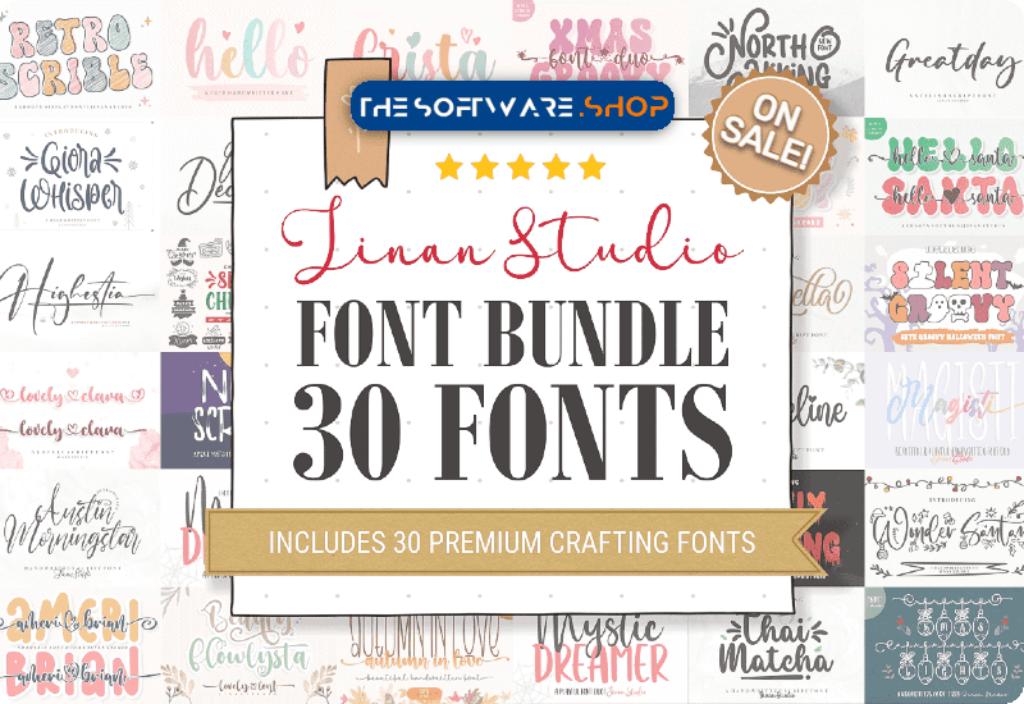
Jinan Studio Font Bundle Overview
Fonts play a pivotal role in shaping the narrative of your projects. They have the power to evoke emotions, capture attention, and create lasting impressions. Every designer knows the value of a versatile font collection, and that’s precisely what the Jinan Studio Font Bundle delivers.
The Power of Quality Fonts
Before delving into the details of the Jinan Studio Font Bundle, let’s understand why fonts matter. Fonts are more than just letters; they are design elements that communicate style, mood, and personality. The right font can turn a mundane piece of text into a visual masterpiece. It can convey elegance, playfulness, or seriousness, depending on your project’s requirements.
Unveiling the Jinan Studio Font Bundle
Now, let’s lift the curtain on the star of the show – the Jinan Studio Font Bundle. This bundle, crafted by the talented designers at Jinan Studio, is a treasure trove of 30 stunning fonts that promise to elevate your design game.
The Font Lineup
Enjoy the fonts included in this bundle. Each font brings its own unique charm and versatility to the table, making it a valuable addition to your design toolkit.
- Hello Script & Handwritten Font
- Xmas Lights Trio Decorative Font
- Mystic Dreamer Duo Script & Handwritten Font
- Retro Scrible Display Font
- Xmas Groovy Duo Display Font
- North Hiking Sans Serif Font
- Hello Santa Duo Display-Schriftarten Schriftart
- Special Christmas Dingbats Font
- Groovy Night Fontes de Exibição Fonte
- Mister Pumpkins Duo Script & Handwritten Font
- Crista Font Corsivi Font
- Christmas Wonderland Display Font
- Silent Groovy Display Font
- Retro Candy Decorative Font
- Lonely Dripping Font Display Font
- Daily Notes Font Corsivi Font
- Wonder Santani Script & Handwritten Font
- Autumn in Love Trio Script & Handwritten Font
- Ameri Brian Script & Handwritten Font
- Greatday Skript-Schriftarten Schriftart
- Next December Script & Handwritten Font
- Magisti Duo Script & Handwritten Font
- Highestia Skript-Schriftarten Schriftart
- Night Scream Display Font
- Thai Matcha Script & Handwritten Font
- Giora Whisper Script & Handwritten Font
- The Holly Merry Skript-Schriftarten Schriftart
- Beauty Flowlysta Script & Handwritten Font
- Austin Morningstar Fuentes Caligráficas Fuente
- Lovely Clara Script & Handwritten Font
PUA Encoding: Easy Access to Creativity
One of the standout features of the Jinan Studio Font Bundle is the PUA (Private Use Area) encoding. This means you have effortless access to a wide range of glyphs and swashes, allowing you to add intricate details and flourishes to your text effortlessly. Say goodbye to design limitations and hello to boundless creativity.
Applications and Versatility
The beauty of this font bundle lies in its versatility. These fonts cater to a wide range of design needs. Whether you’re working on a wedding invitation, a holiday poster, a branding project, or even a fantasy book cover, you’ll find fonts that suit your requirements.
Let Your Imagination Run Wild
With the Jinan Studio Font Bundle in your design arsenal, there are no boundaries to your creativity. Experiment with different fonts, combine them, and watch your ideas come to life. The only limit is your imagination.